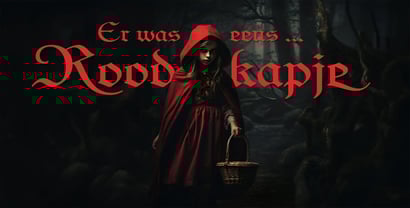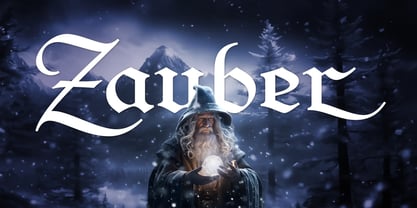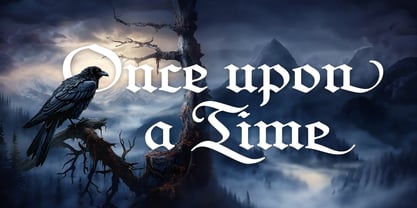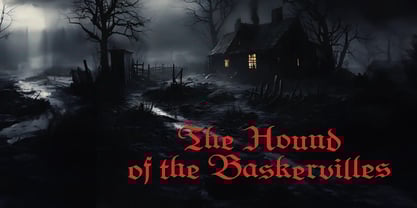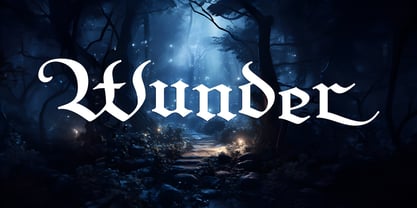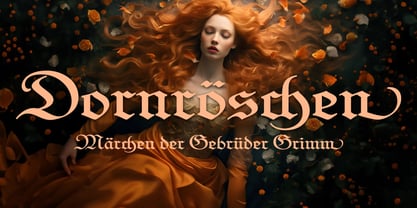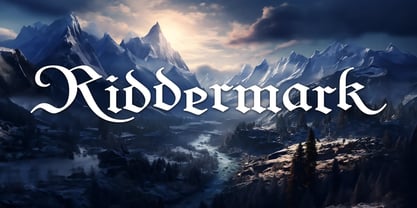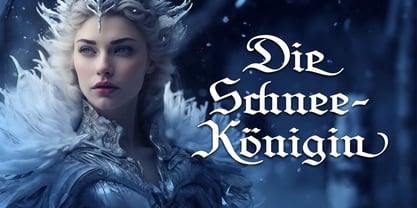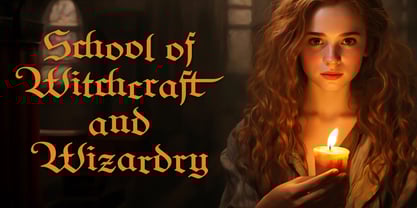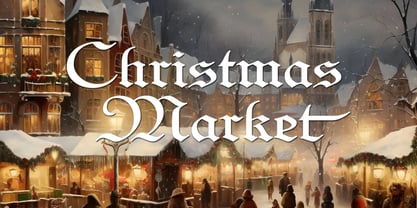
FDI Wunder
The FDI Wunder Font Family was designed by Ralf Herrmann and published by FDI. FDI Wunder contains 2 styles and family package options.
FDI Wunder is based on the typeface Laudahn-Kanzlei originally designed by Heinrich Laudahn and released by Bauer in 1913. FDI Wunder is a carefully crafted revival design based on the original letterpress fonts.
FDI Wunder comes in two versions: version A stays close to the original design and is perfect for traditional German blackletter typesetting. Version B uses romanized letterforms which are easier to read and more suitable for a broader audience.
Both version come with a complete Western Latin character set, OpenType ligatures and swash characters for the beginning and end of words. The swash characters are coded to be content aware and will only be turned on at the beginning and end of line and when no collisions with other characters could occur. For an extra touch of magic, try out the experimental title case feature, which automatically creates a ‘dancing baseline’ (when supported by the app).
About FDI
The FDI Type Foundry is a German type foundry and was founded in 2004. It is part of the typography network Schriftkontor Ralf Herrmann. The foundry offers both contemporary designs as well as high-quality revivals of German letterpress fonts. The foundry is run by Ralf Herrmann, who studied graphic design at the Bauhaus-University Weimar and runs various online typography projects such as Typography.guru, Typografie.info and the Letter Library.